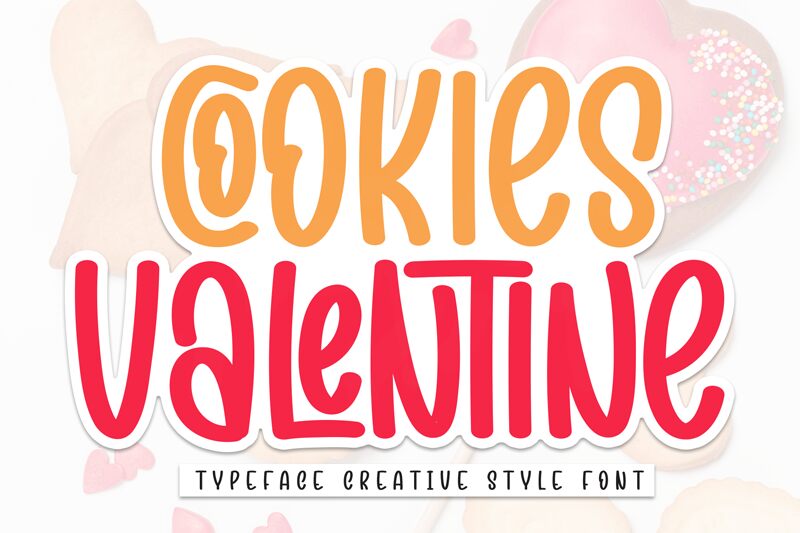
Cookies Valentine
Cookies Valentine font by Scratchones is a modern, friendly, handwritten typeface that embodies an expressive yet casual look. Its condensed structure and whimsical feel make it ideal for designs that require a crisp and inviting aesthetic. This free handwritten font captures an approachable and charming vibe within its lettering.
Use Cookies Valentine for social media posts, athletic-themed topics, apparel projects like t-shirts or jerseys, product packaging, store names, music album covers or posters, movie titles and posters, invitations and greetings cards of all sorts; wedding in particular. The uses of this resource extend also to blog branding and websites.